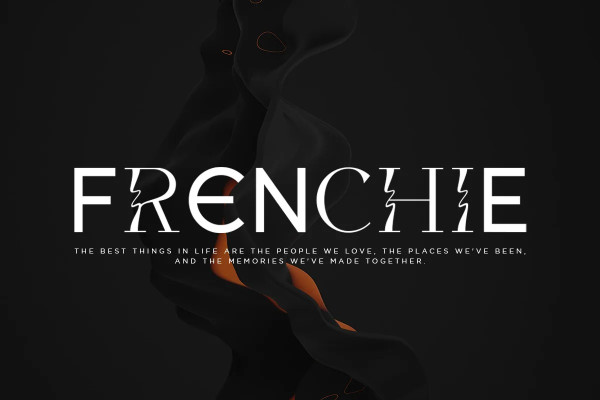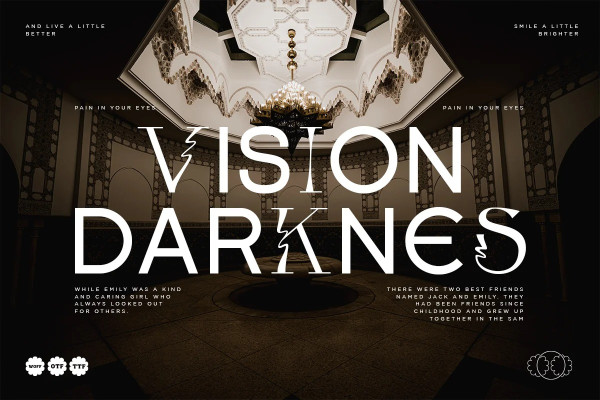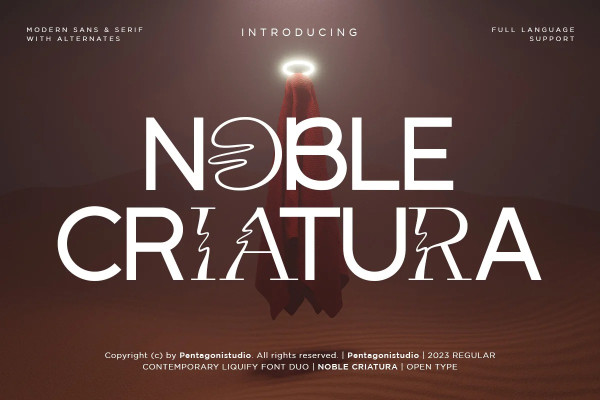
Noble Criatura Font
Noble Criatura Font Is A Display Font Combinated with Sans/Serif Typefaces. Its optimum legibility, clean, and geometric look is perfect branding, brochures, greeting cards, quotes, posters, stationary, design titles, blog headers, and much more.